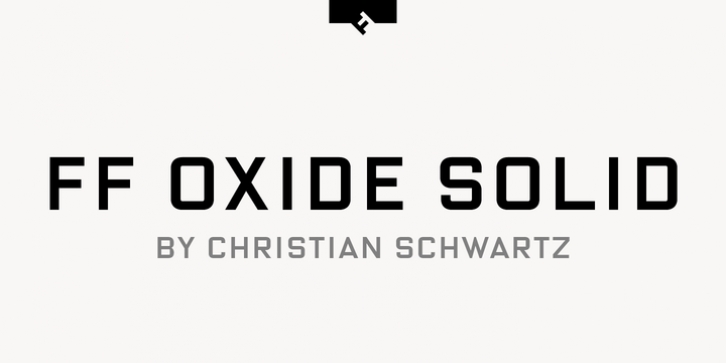
Publisher: FontFont
American type designer Christian Schwartz created this display and sans FontFont in 2005.
The family contains 3 weights: Light, Regular, and Bold and is ideally suited for advertising and packaging, music and nightlife, poster and billboards, software and gaming as well as sports.
FF Oxide Solid provides advanced typographical support with features such as ligatures, titling alternates, case-sensitive forms, fractions, and super- and subscript characters.
It comes with tabular lining and proportional lining figures.
This FontFont is a member of the FF Oxide super family, which also includes FF Oxide Stencil.